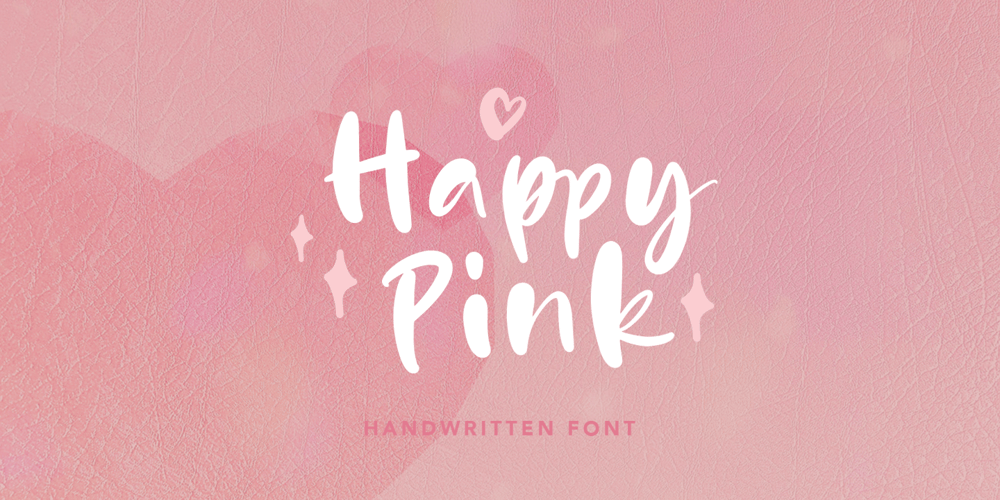
Happy Pink Font Family was designed by Hendry Juanda and published by Letterhend. Happy Pink contains 1 styles and family package options. Sweet, simple and personal with a touch of fun- Happy Pink is freshly and natural brush lettering, perfect for eye-catching branding.The bold stroke make this font looks stands out, very suitable to be applied especially to packaging, birtday card or invitations, labels, logos, magazines, books, greeting / wedding cards, fashion, make up, stationery, novels, labels or any type of advertising purpose.Features : uppercase & lowercase numbers and punctuation multilingual alternates & ligatures PUA encoded We highly recommend using a program that supports OpenType features and Glyphs panels like many of Adobe apps and Corel Draw, so you can see and access all Glyph variations. How to access opentype feature : letterhend.com/tutorials/using-opentype-feature-in-any-software/